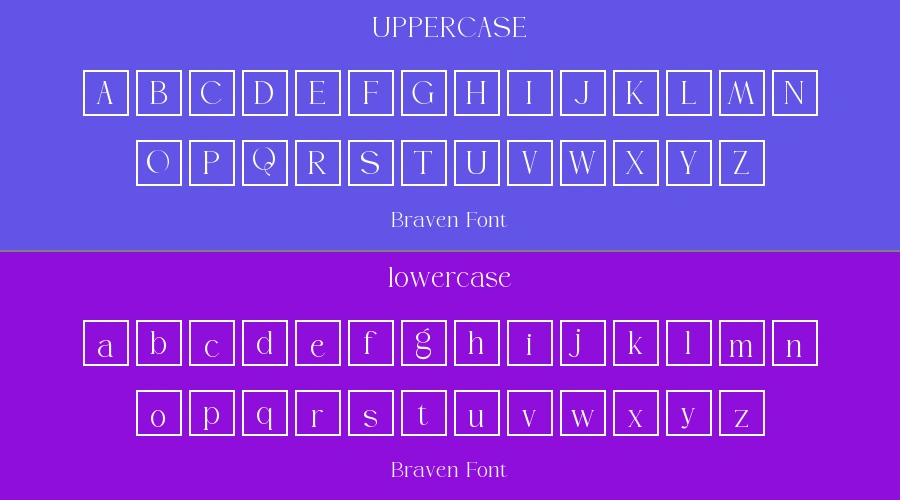
About Braven Font
Braven Font embodies typographic excellence through its masterful combination of ornamental caps and market differentiation. Created for technical manuals, this typeface delivers exceptional flexibility and artistic value across all applications. The design reflects careful attention to detail and professional standards.
Advanced capabilities include distinctive high x-height and versatile oldstyle figures, giving designers creative control. When used in ceremonial texts, Braven Font exhibits remarkable reproduction fidelity. The harmonious balance between stem weight and scientific authority sets this typeface apart.
Braven Font |